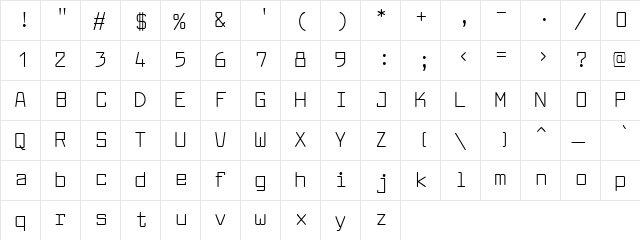
Jizzy Dark Regular
Design Context for Jizzy Dark Typeface
Jizzy Dark takes a measured approach to typography — its balanced proportions and neutral character make it a reliable workhorse for both digital and print work.
Pro Tip: Use Jizzy Dark in both headline and body roles to test its range before committing to a single application.